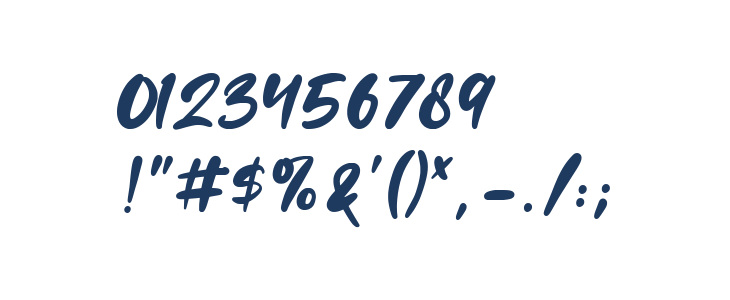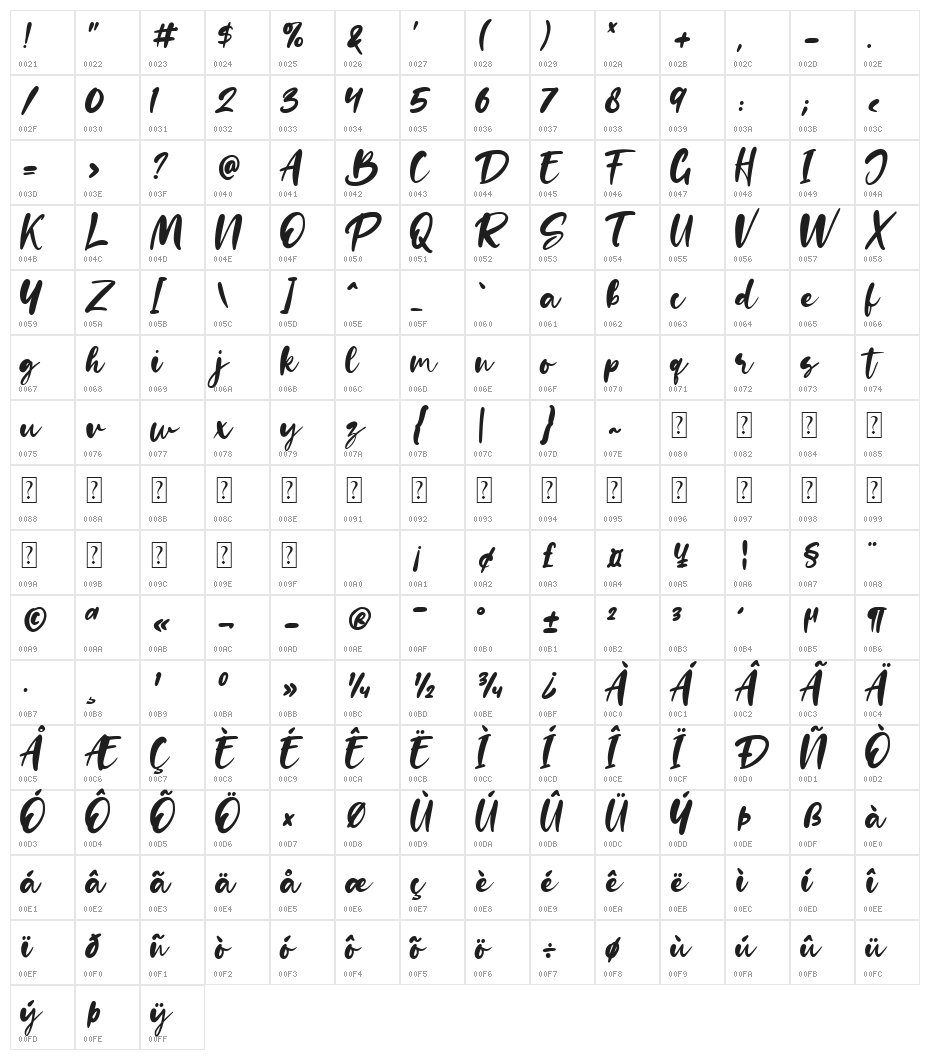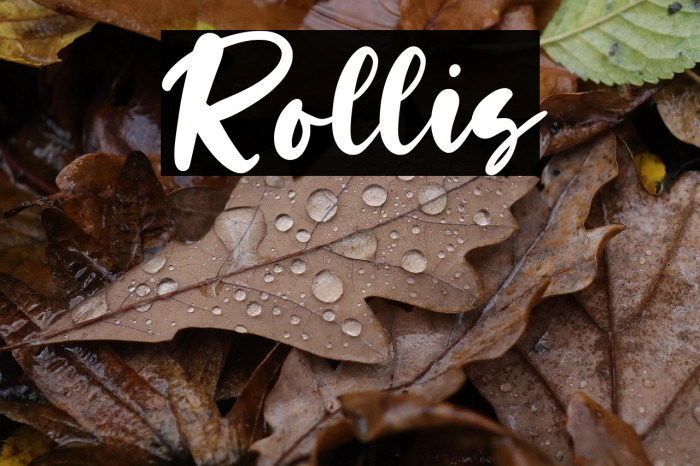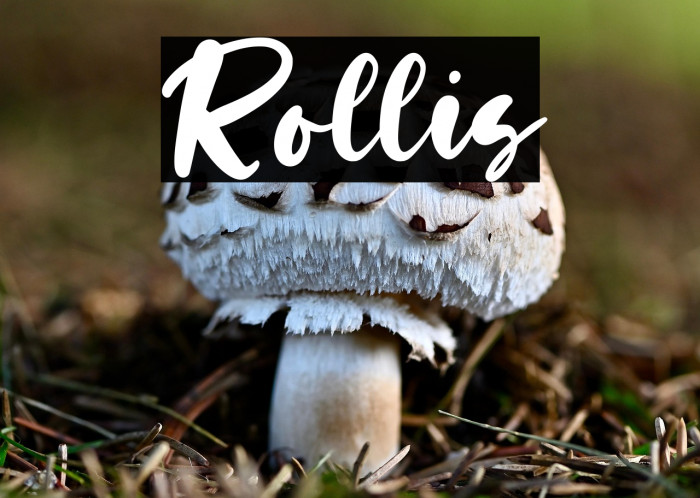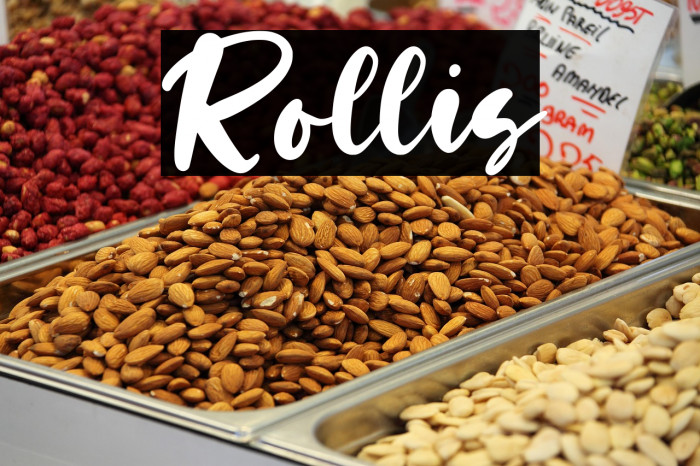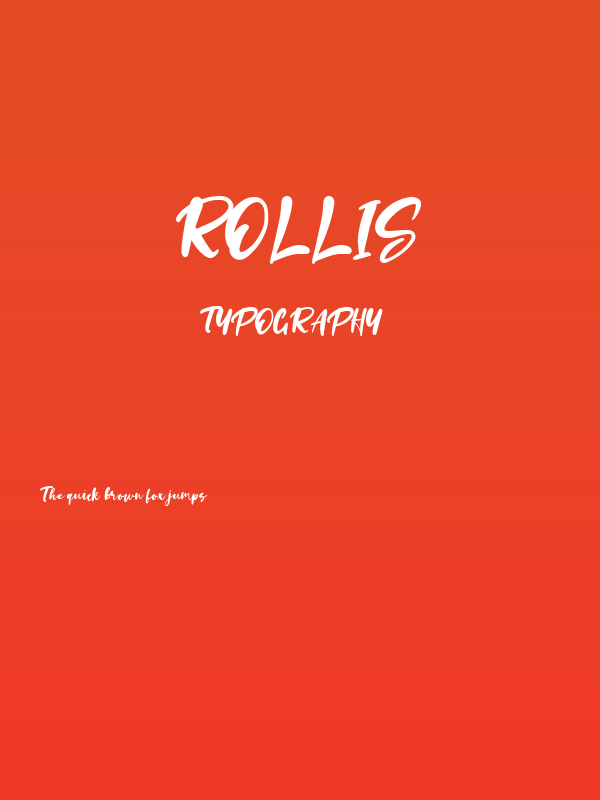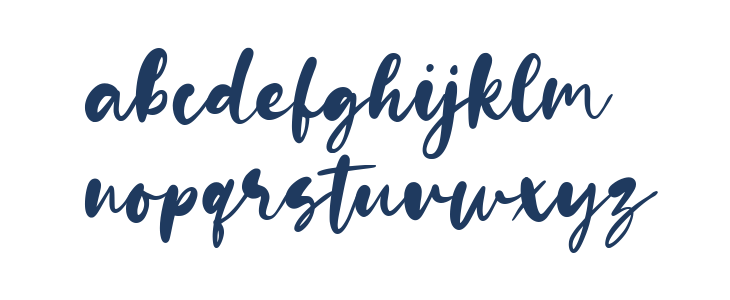
Rollis Font
Rollis Description
This font features a bold and expressive script style with a handwritten appearance. The letters are fluid and dynamic, showcasing a sense of movement and energy. The uppercase characters are slightly more structured, while the lowercase letters exhibit a more casual and flowing design. The numbers maintain the same lively style, ensuring consistency across all characters. The special characters are well-integrated, adding versatility to the font. This font's bold strokes and smooth curves make it ideal for projects that require a personal and artistic touch.
| Use Case | Logos, Headlines, Posters |
| Proposed Projects | Ideal for branding, invitations, greeting cards, and social media graphics. |